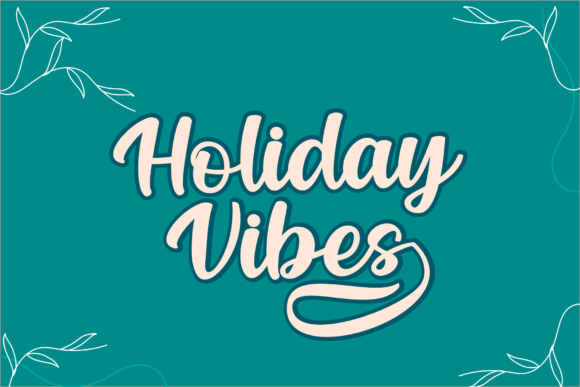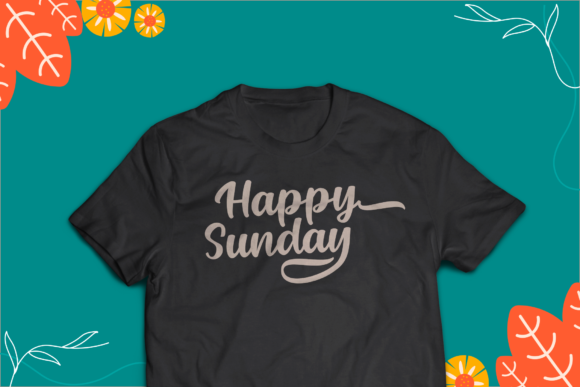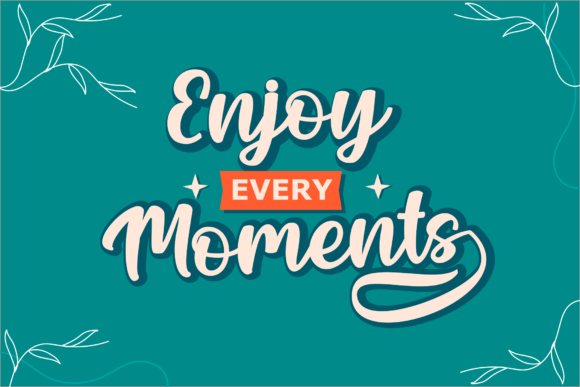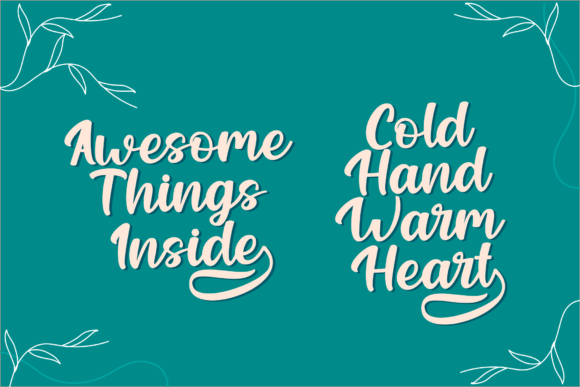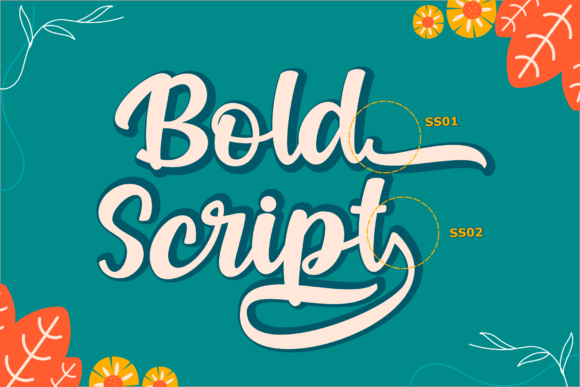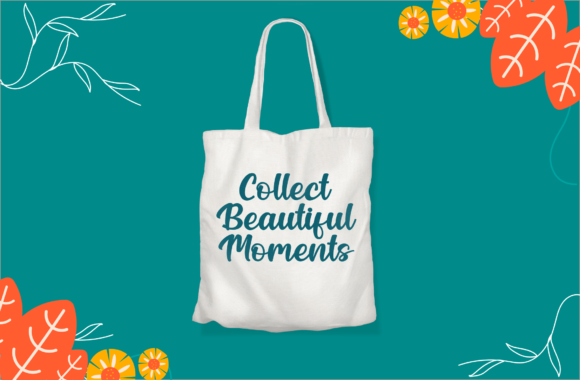
The Charm of Cartline Brush Font: A Designer’s New Best Friend
I’ll never forget the time I was working on a project for a client’s chalkboard-style signage. I had all the design elements ready, but I was stuck on finding the perfect font. It had to be playful, yet elegant; casual, yet sophisticated. That’s when I stumbled upon Cartline Brush Font, and it instantly became my go-to for all sorts of creative projects.
What I Love About Cartline Brush Font
- ✨ Authentic Look: Cartline Brush Font has an undeniably charming, hand-crafted feel that adds a personal touch to any design.
- ✅ PUA Encoding: The font is PUA encoded, making it easy to access all glyphs and swashes, which is a game-changer for designers who love experimenting with different styles.
- 🎨 Versatility: Whether you’re creating chalkboard quotes, teaching materials, or just want to add some personality to your designs, Cartline Brush Font fits the bill.
While Cartline Brush Font is amazing, there are a few things to keep in mind:
- ⚠️ Limited Use in Small Sizes: Like many script fonts, Cartline Brush can get a bit lost when scaled down. It’s best used in larger sizes where its details can shine.
- 🤔 Some Swashes Might Not Be Suitable for All Projects: While the swashes and glyphs are incredibly useful, some might be too ornate or distracting for certain designs. It’s all about balance and knowing when to use them.
Exploring Alternatives: Similar Fonts to Cartline Brush
If you love Cartline Brush Font, you might also enjoy:
- Kristi: A whimsical script font perfect for kid-friendly projects or any design needing a playful touch.
- Bramble: Offers a more rustic, handwritten feel that’s great for organic or vintage-themed designs.
- Mandolin: A bit more elegant, Mandolin has a lovely, flowing script that’s ideal for more sophisticated designs.
- Blush: With its soft, gentle curves, Blush is perfect for romantic or feminine designs.
The Story Behind Cartline Brush Font
Cartline Brush Font was inspired by the classic chalkboard art often seen in cafes, schools, and street art. The designer aimed to capture the essence of hand-drawn letters, infusing them with a modern twist to make them versatile for digital and print use. The result is a font that feels both nostalgic and fresh.